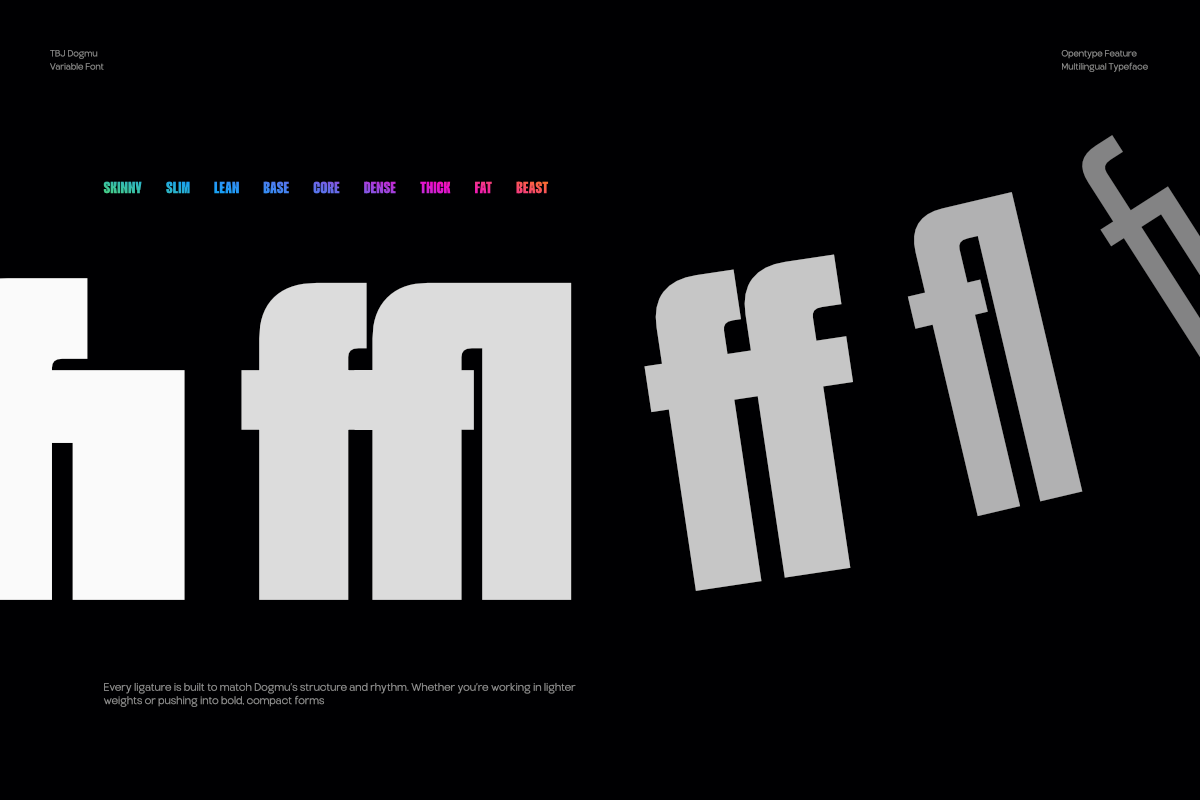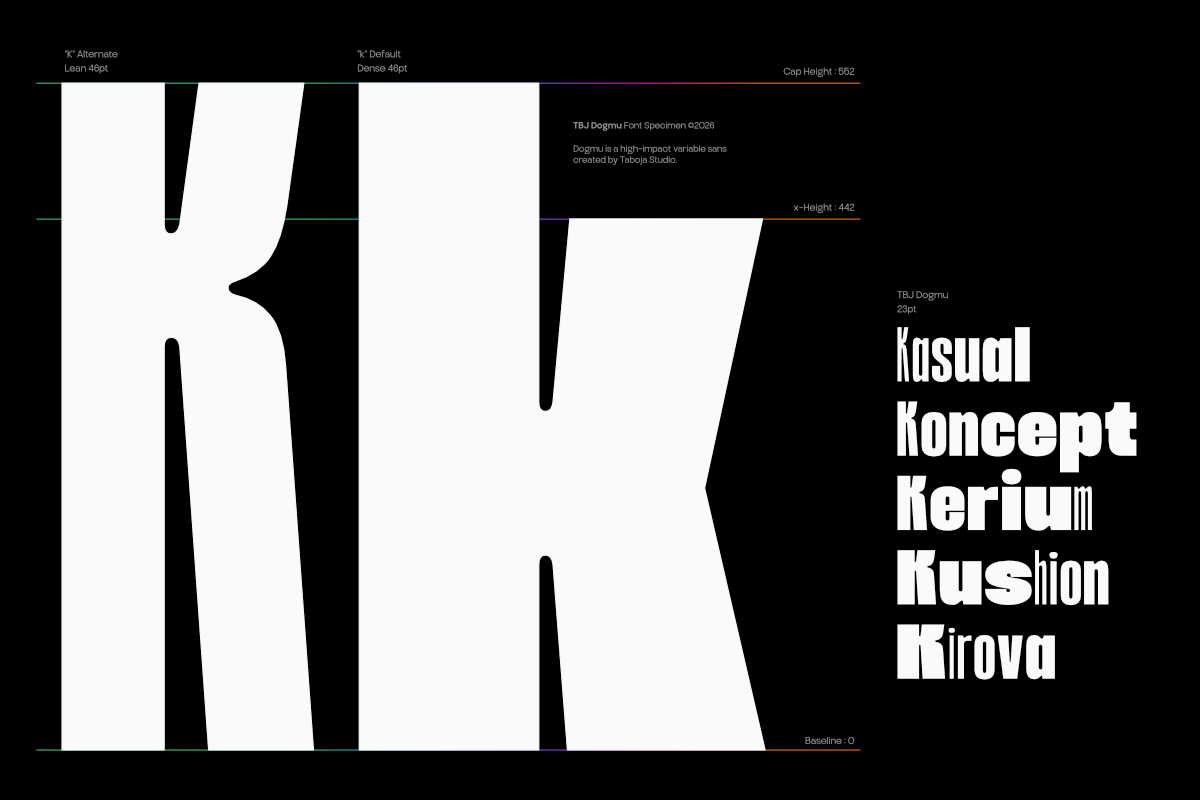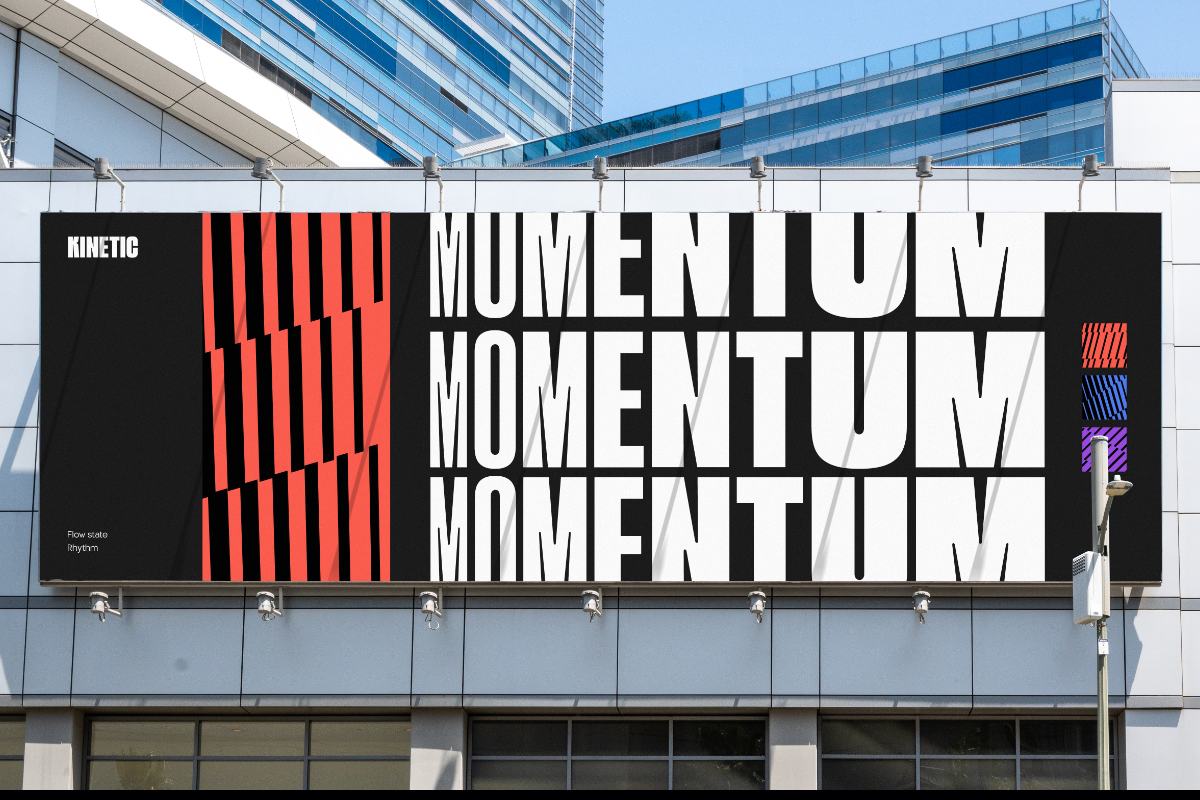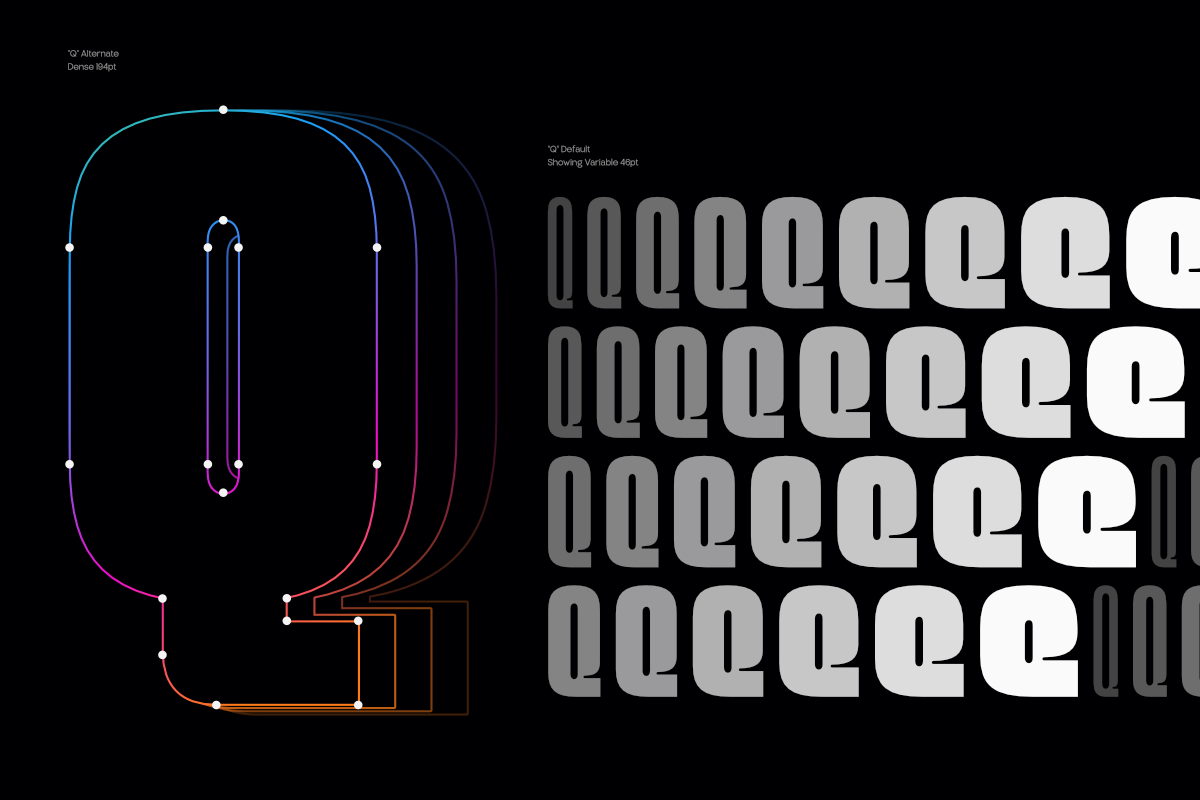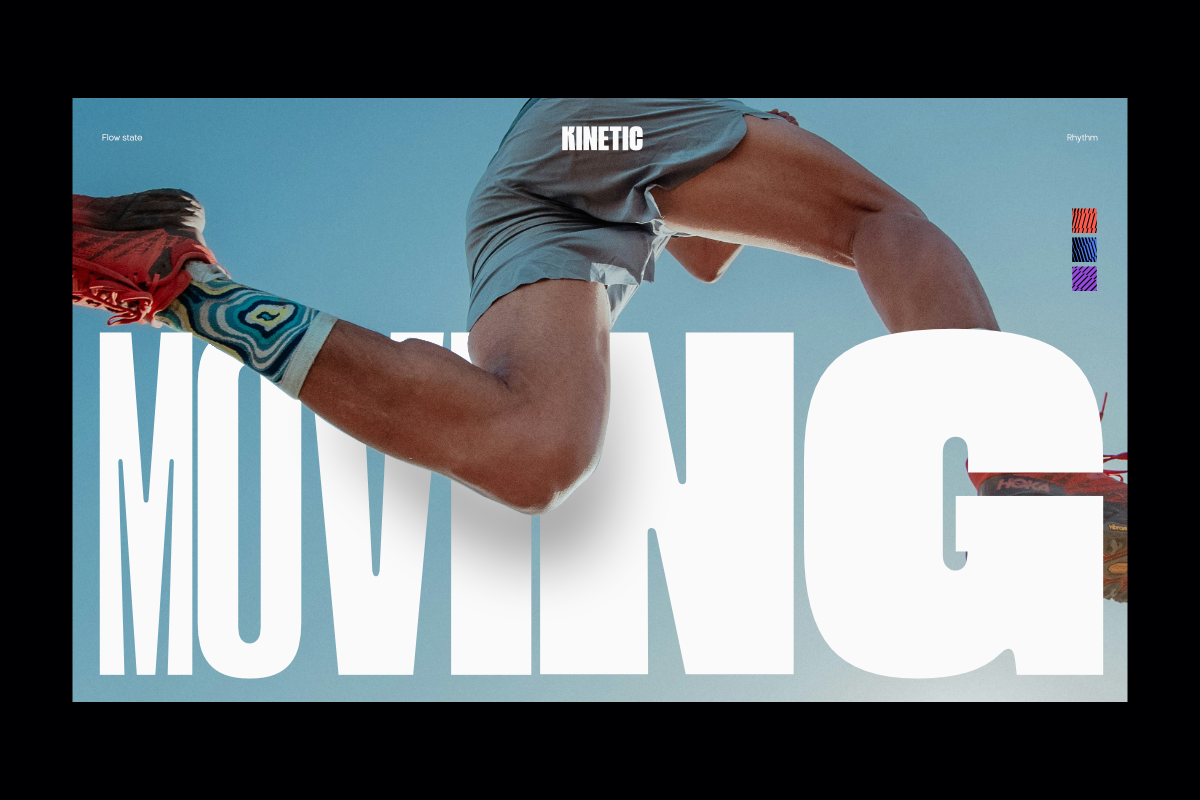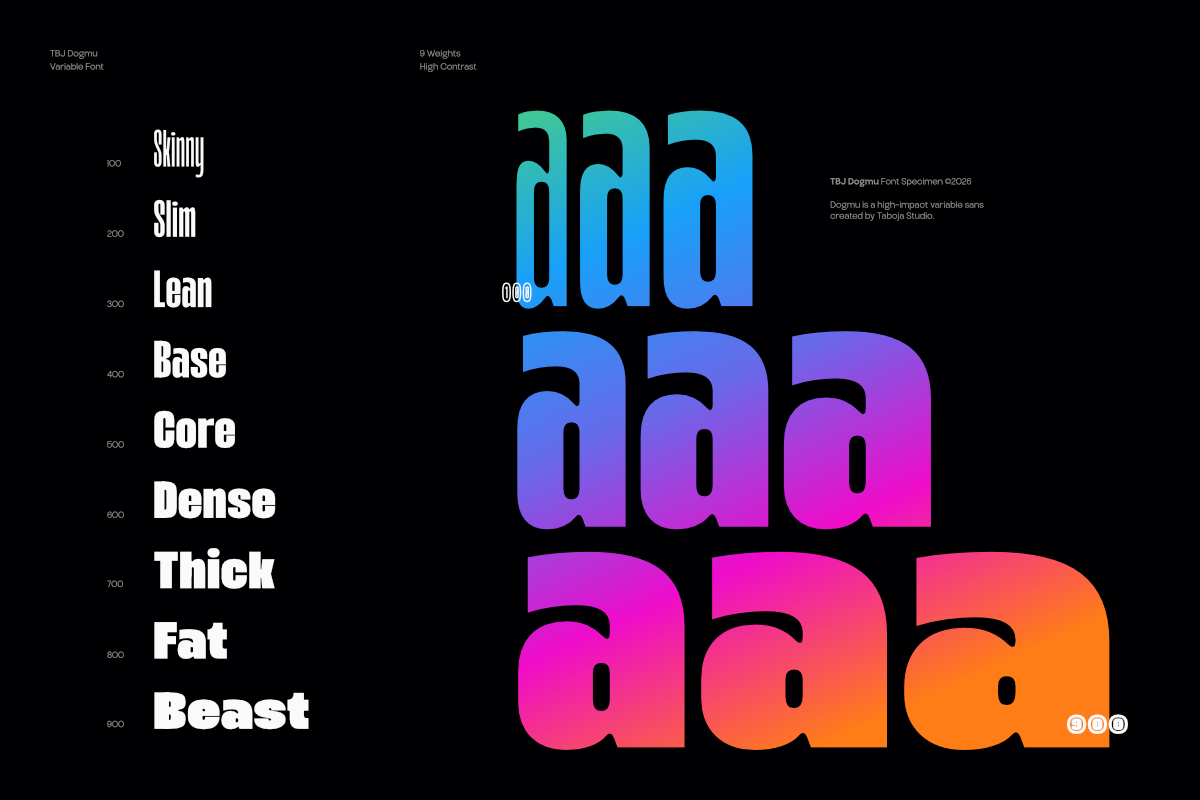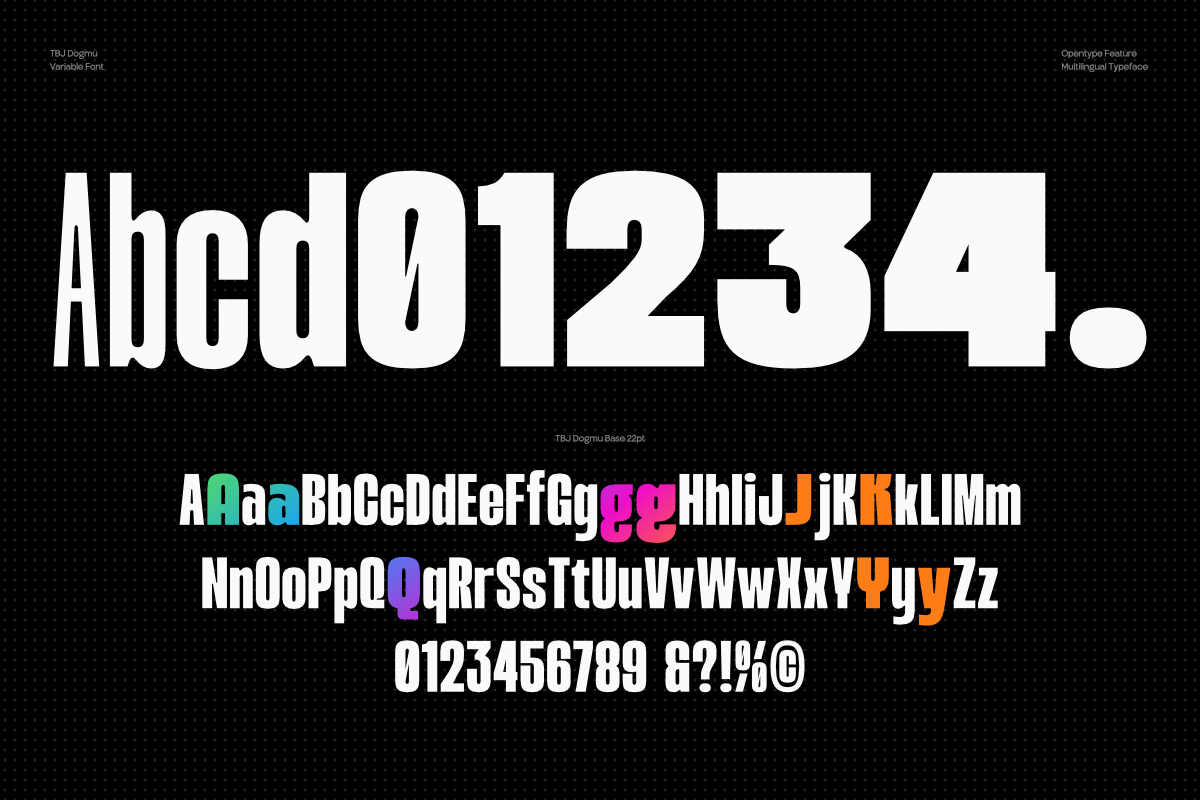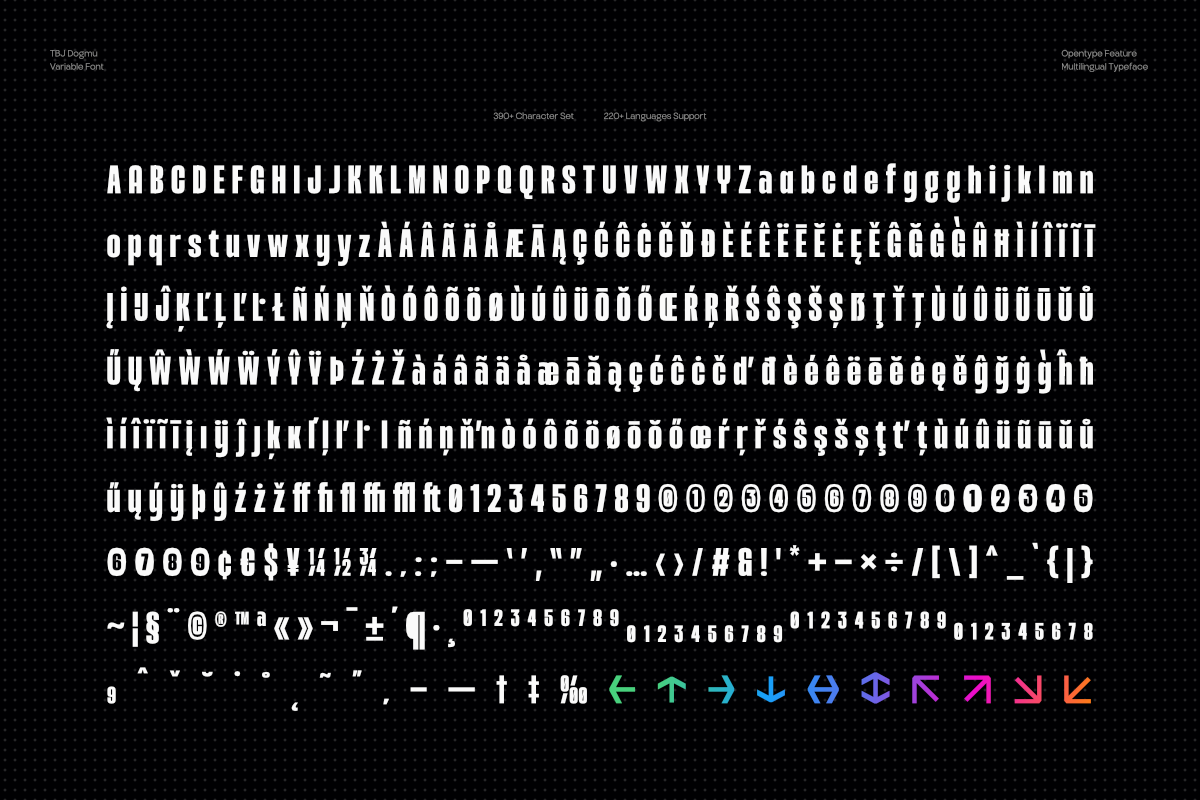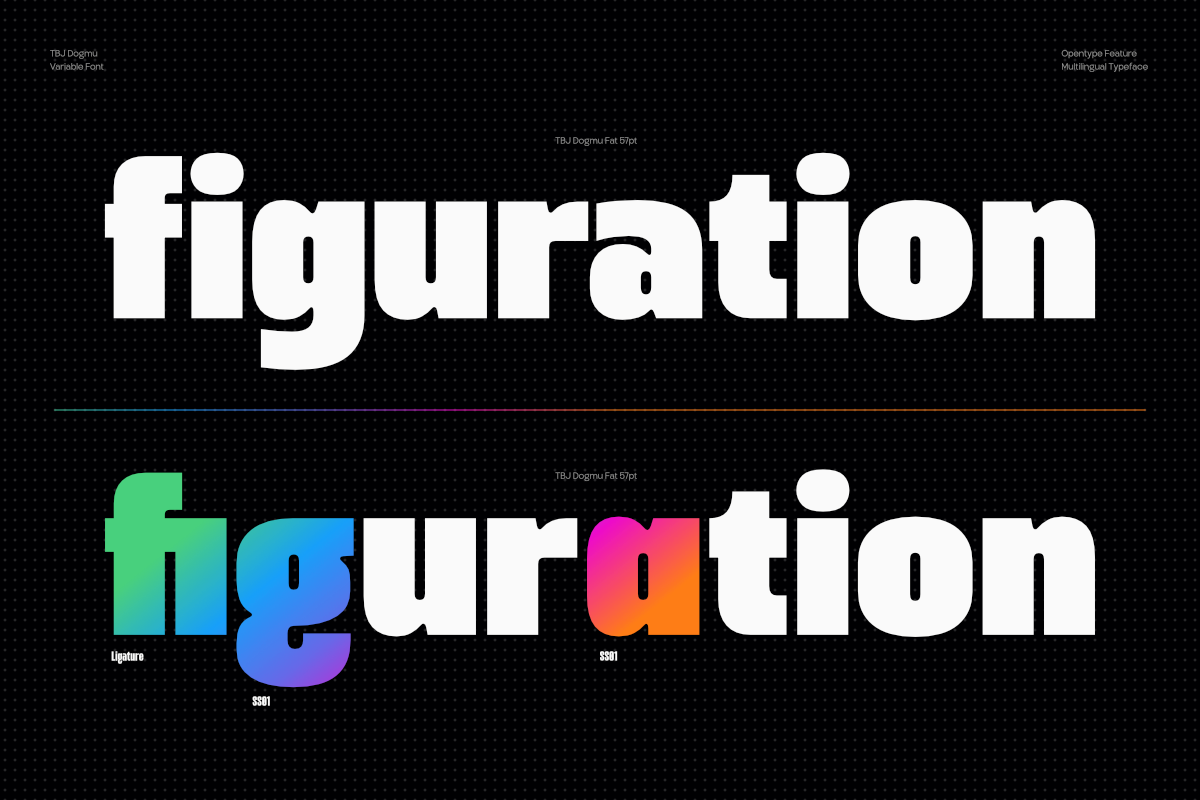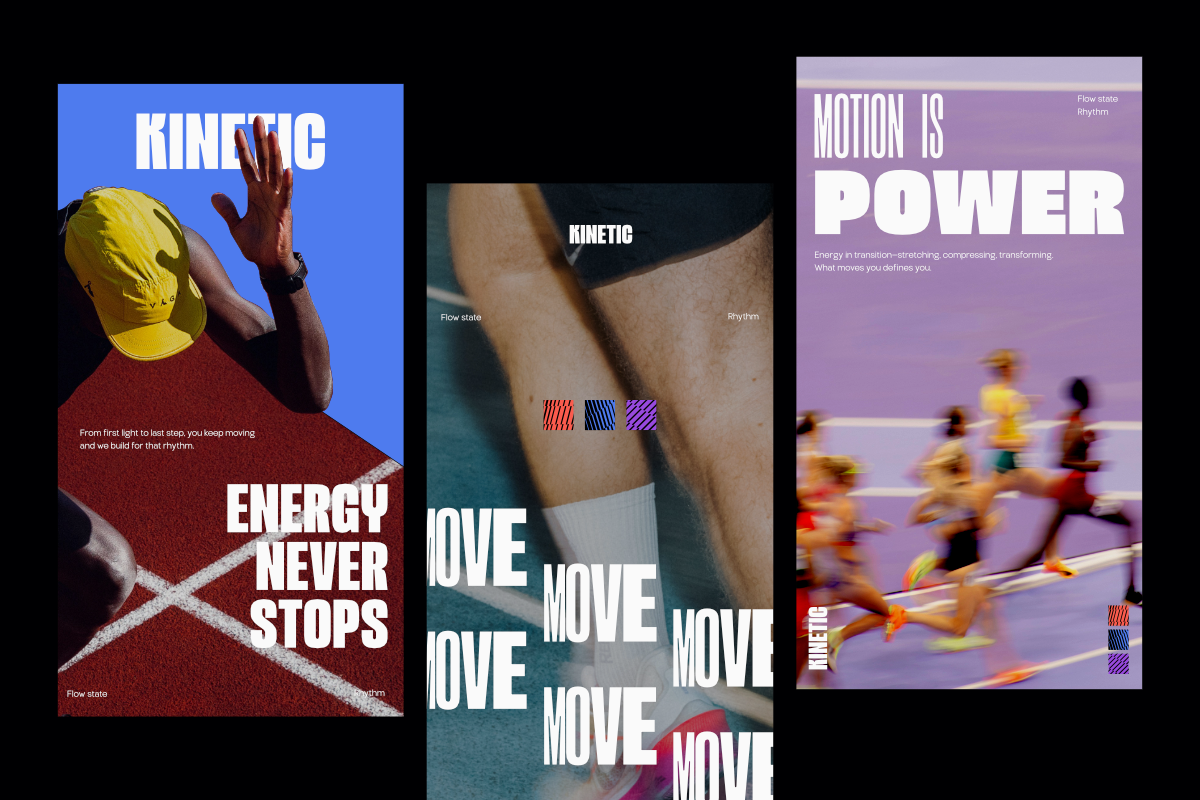
TBJ Dogmu Bold Power Sans Serif
TBJ Dogmu is a bold and powerful sans serif typeface built for maximum visual impact. Designed with strong proportions, solid structure, and confident letterforms, Dogmu delivers a striking presence across headlines, posters, branding, and digital layouts.
This font family features an expressive weight range from Skinny to Beast, allowing extreme flexibility from tight, condensed compositions to heavy, dominant typography. Each weight maintains a consistent structure while amplifying intensity as it grows thicker, making it ideal for layered designs, dynamic layouts, and bold brand statements.
TBJ Dogmu blends modern sans serif clarity with an urban, high-energy attitude. Its compact shapes and powerful strokes make it perfect for logos, sports branding, merchandise, editorial covers, packaging, and attention-grabbing social media graphics.
Whether used in its lightest Skinny form or its heaviest Beast weight, Dogmu is engineered to command attention while staying clean, legible, and versatile across print and screen.